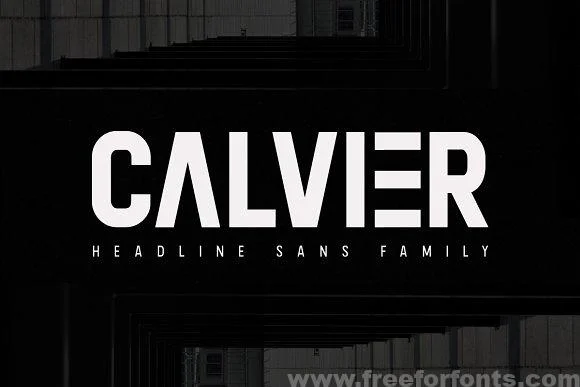
Calvier - Headline Sans Family
Calvier Headline Sans Font is perfect for newspaper headlines, magazine covers, editorial layouts, news website headers, publishing house branding, journalism conference materials, media company logos, press release headers, broadcasting graphics, and impactful advertising campaigns.
Calvier Headline Sans Font is exciting because it masterfully combines journalistic authority with contemporary readability, creating a sans-serif typeface that embodies the power of compelling headlines and the trustworthy nature of professional journalism. This font brings editorial excellence and news credibility to any project, making it ideal for media organizations and brands that want to convey authority, clarity, and the compelling impact of well-crafted headlines. Its strong character and readable design create an atmosphere of journalistic integrity that resonates with audiences seeking reliable information and engaging content.
Calvier Headline Sans Font family includes thin, light, regular, medium, bold, and black weights, each available in roman and italic styles with news symbols and editorial ornaments, providing designers with comprehensive tools for creating powerful headline typography and professional media brand experiences.
This commanding headline typeface combines editorial design principles with contemporary functionality, making Calvier Headline Sans Font Free Download an exceptional choice for projects requiring both visual impact and journalistic credibility. The font's precisely engineered letterforms feature optimized proportions and headline-focused styling that ensure maximum readability and attention-grabbing presence across all media platforms.
Whether you're designing newspaper layouts, digital news platforms, or media company branding, Calvier Headline Sans Font delivers unmatched editorial authenticity and headline power. The font excels in both large-scale newspaper applications and detailed digital interfaces where journalistic authority and reader engagement create compelling news experiences.
Media professionals choose Calvier Headline Sans Font for its ability to instantly communicate news authority and editorial excellence while maintaining the clarity essential for rapid headline comprehension. The font's journalistic character makes it particularly effective for newspapers, magazines, and digital news organizations.
Each character demonstrates the precision and impact of professional journalism, featuring strong construction and headline-optimized proportions that create typography as compelling and trustworthy as breaking news and investigative reporting.